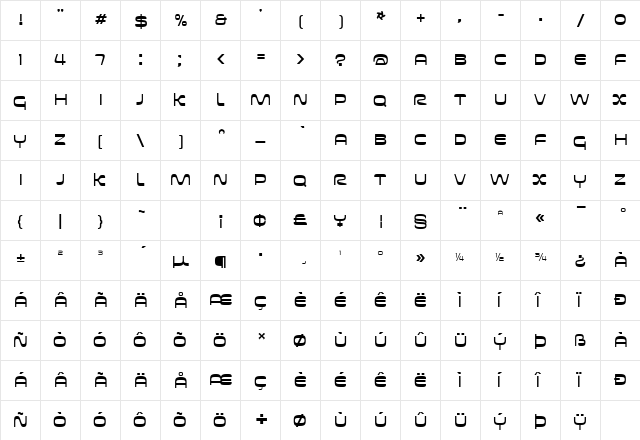
Futurespore Regular
| Foundry | Andrew Young |
| Designer | Andrew Young |
Design Context for Futurespore Typeface
Futurespore has a distinctly futuristic character, with geometric precision and clean angles that feel at home in technology, gaming, and sci-fi contexts.